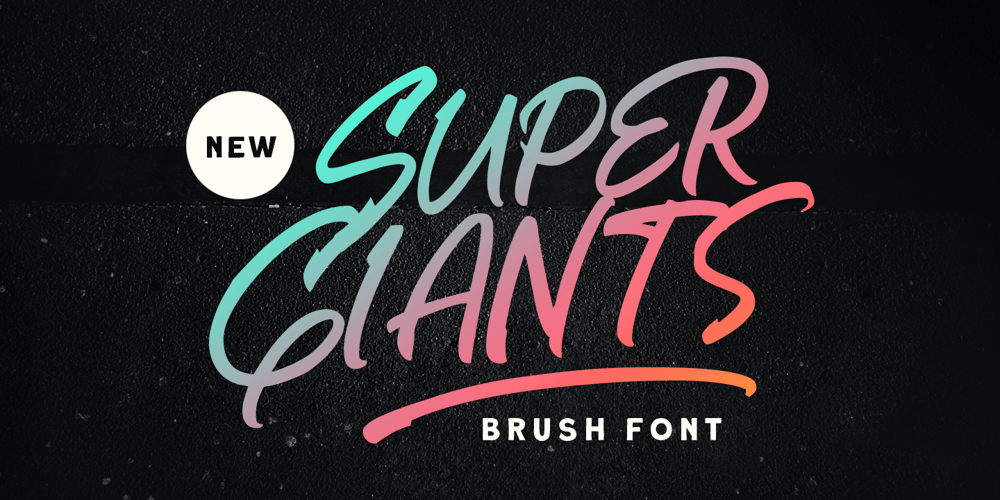
Super Giants Font Family was designed by Hendry Juanda and published by Letterhend. Super Giants contains 1 styles and family package options. Introducing, Super Giants – a brush font with natural hand writing with modern and dynamic feel. This type of font perfectly made to be applied especially in logo, and the other various formal forms such as invitations, labels, logos, magazines, books, greeting / wedding cards, packaging, fashion, make up, stationery, novels, labels or any type of advertising purpose.Features : uppercase & lowercase numbers and punctuation multilingual alternates and ligatures swashes PUA encoded We highly recommend using a program that supports OpenType features and Glyphs panels like many of Adobe apps and Corel Draw, so you can see and access all Glyph variations.